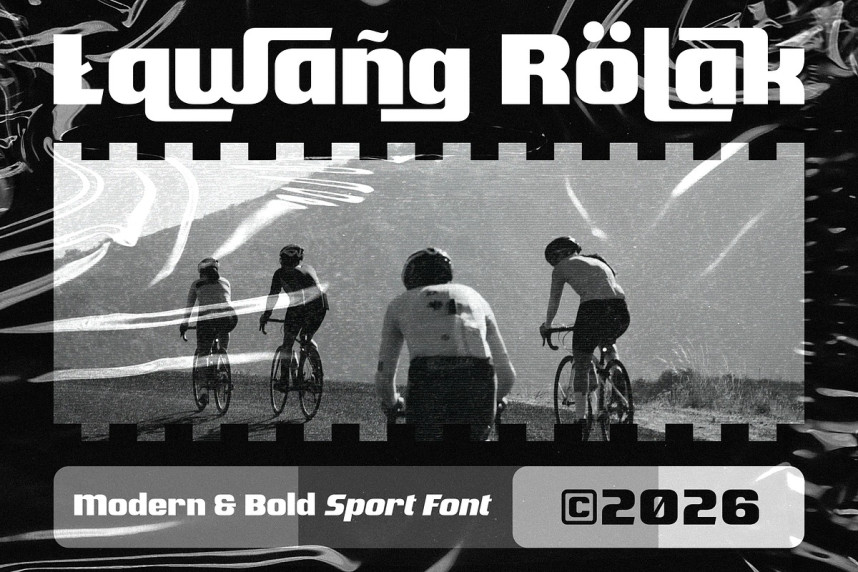
Gasswick Font
Gasswick Font is a bold fun display typeface with unique style. It’s designed and shared by Twicolabs Fontdation. Suits best for logo, quote design, headline, etc. Consists of 600+ characters (Multilingual and OpenType featured glyphys included), this font is a must have for all you designers!